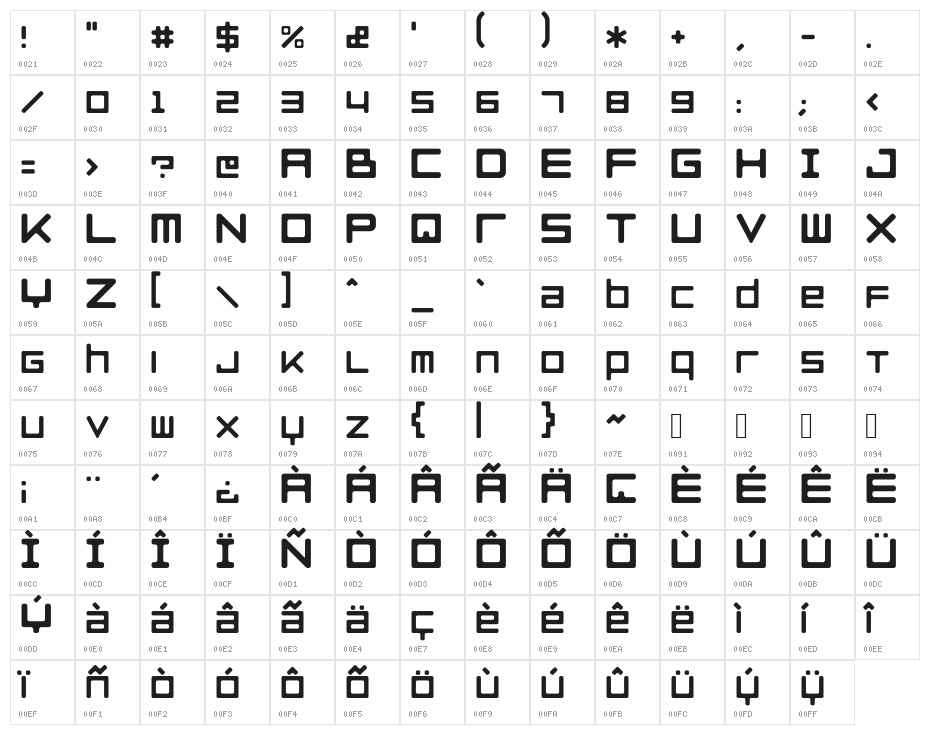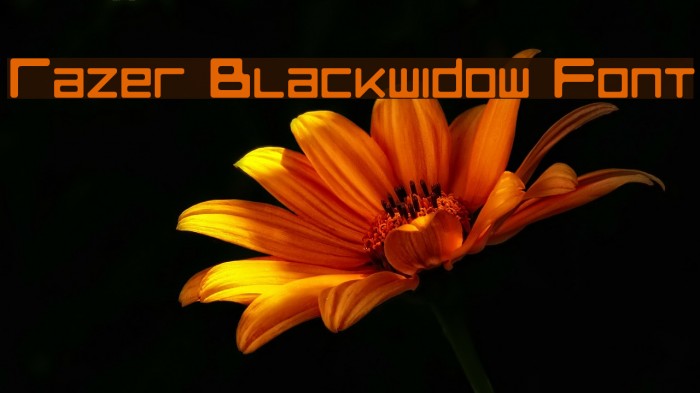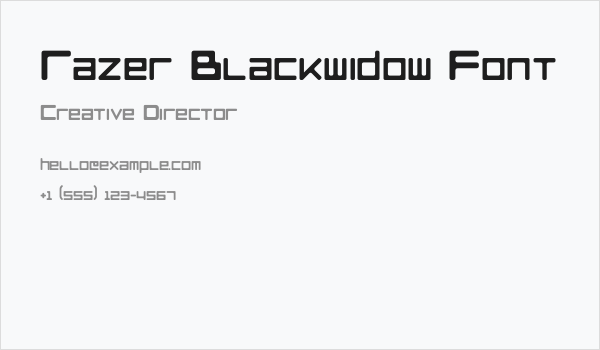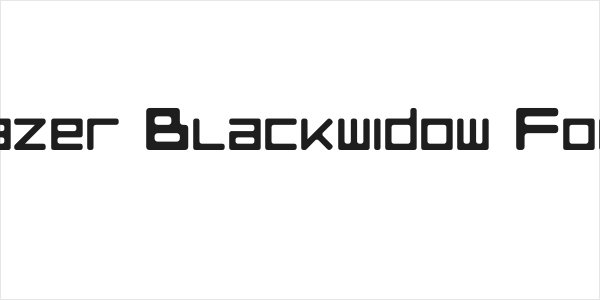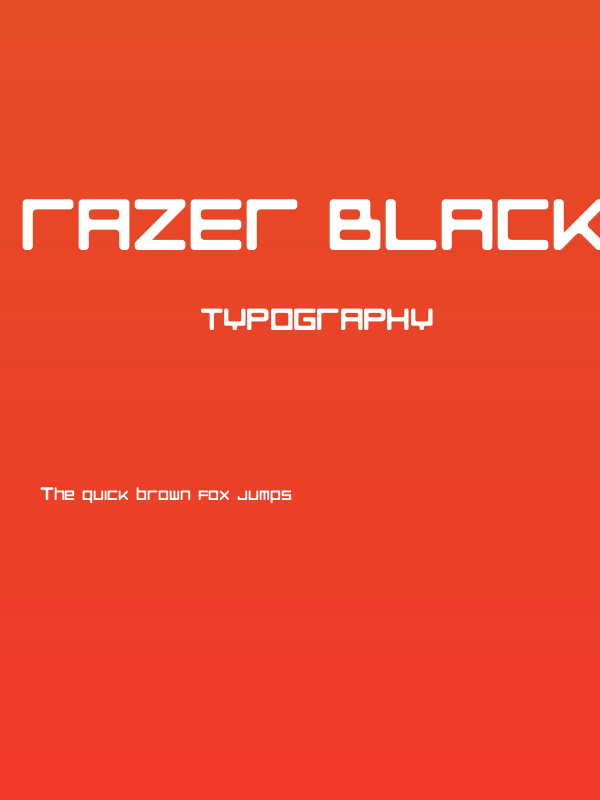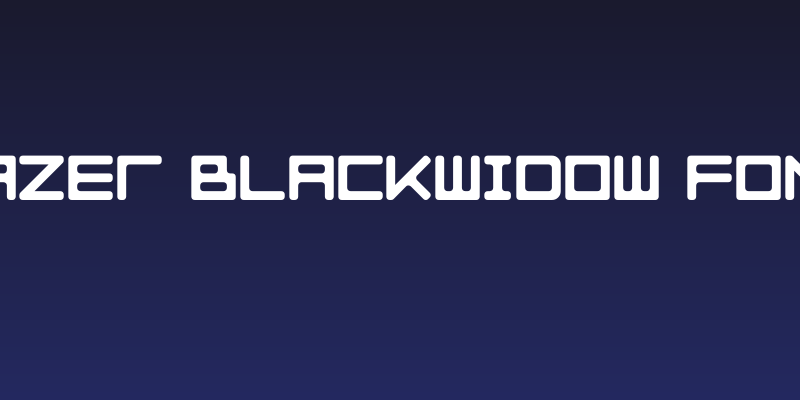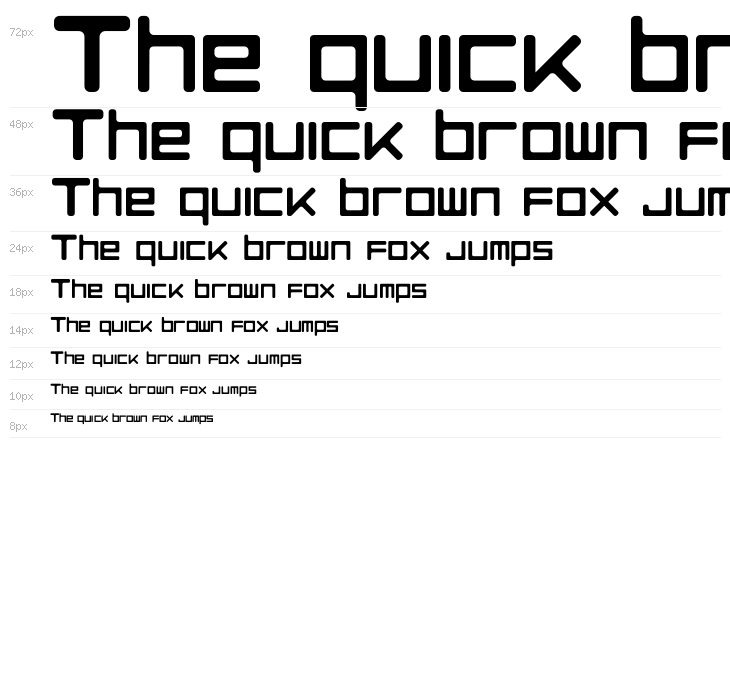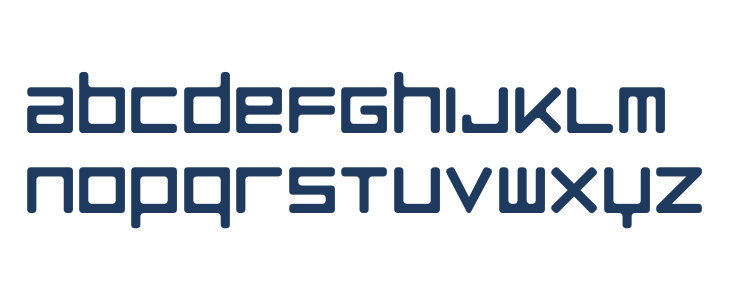
Razer Blackwidow Font Font
Razer Blackwidow Font Description
This font features a modern, geometric design with a strong, futuristic appeal. The characters are bold and rounded, with a consistent stroke width that gives a uniform appearance. The uppercase and lowercase letters maintain a similar height, enhancing the font's cohesive look. The numerals and special characters are designed to match the overall style, ensuring a seamless integration across different uses. The font's clean lines and minimalistic design make it suitable for tech-oriented projects, gaming interfaces, and digital branding. Its distinct style is both eye-catching and functional, making it versatile for various applications.
| Use Case | Logos, Headlines, Digital interfaces |
| Proposed Projects | Ideal for tech branding, gaming interfaces, digital media, and futuristic designs. |